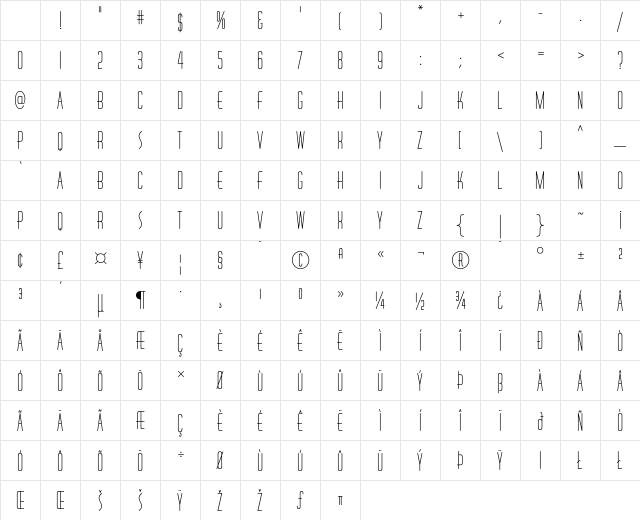
Complete HuxleyVertICG Regular glyph index. Displaying only characters natively supported by HuxleyVertICG Regular font.
HuxleyVertICG is a composed and adaptable typeface that performs quietly and consistently across a wide range of design contexts.